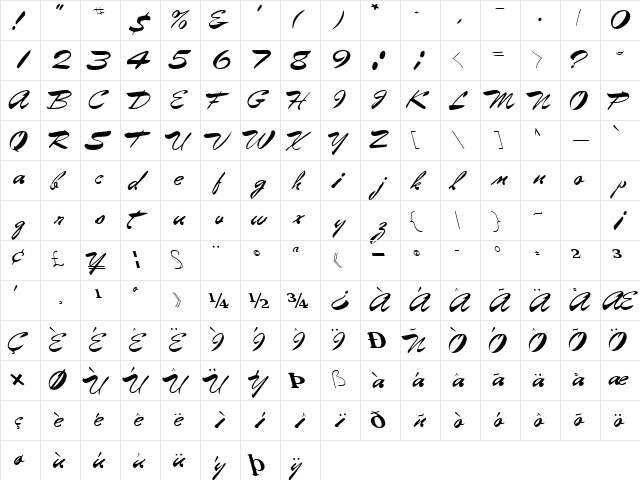
EggShell61 Regular Font Preview
EggShell61 Regular
EggShell61 Regular Font Details
Design Context for EggShell61 Typeface
EggShell61 is a composed and adaptable typeface that performs quietly and consistently across a wide range of design contexts.